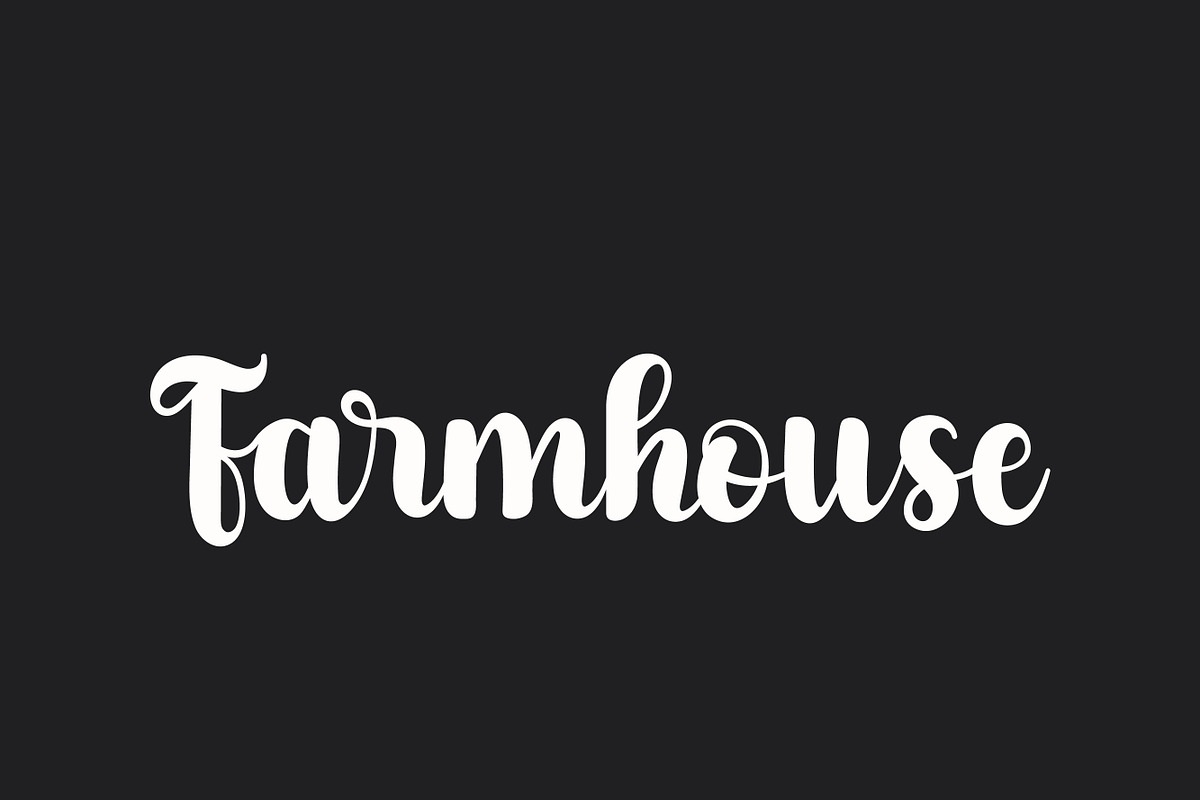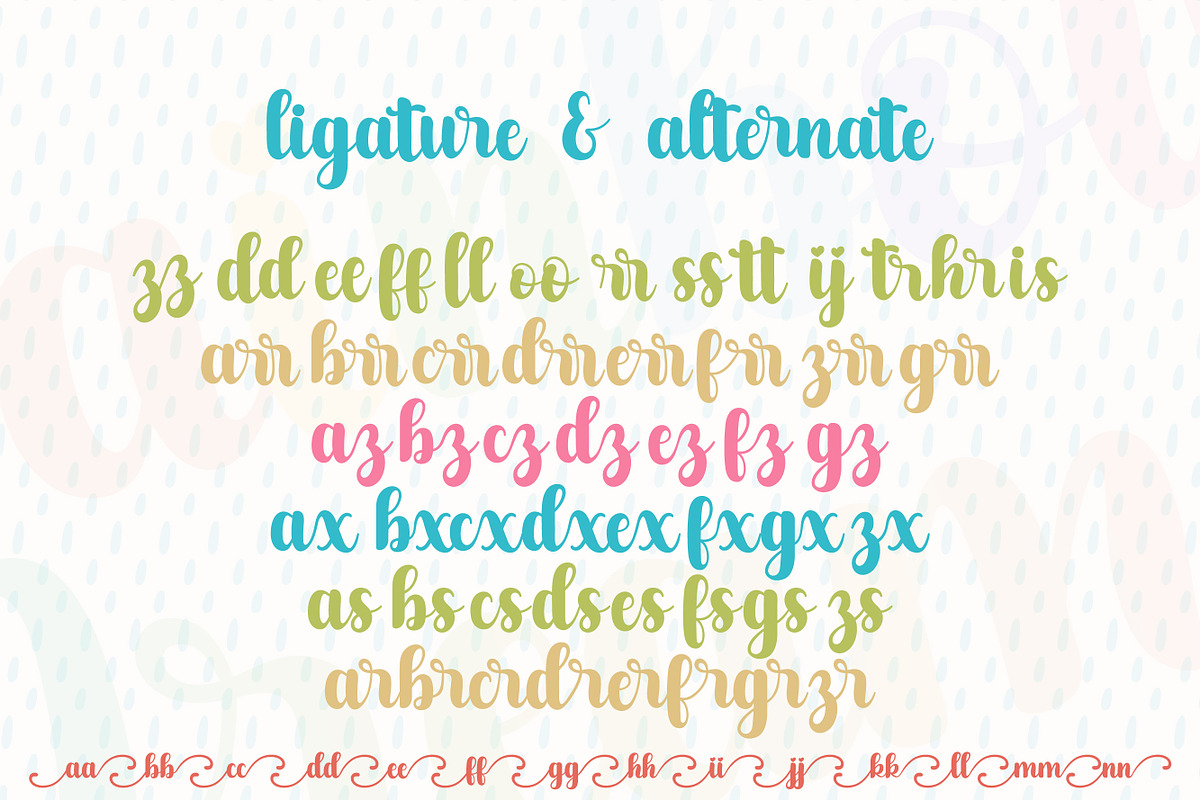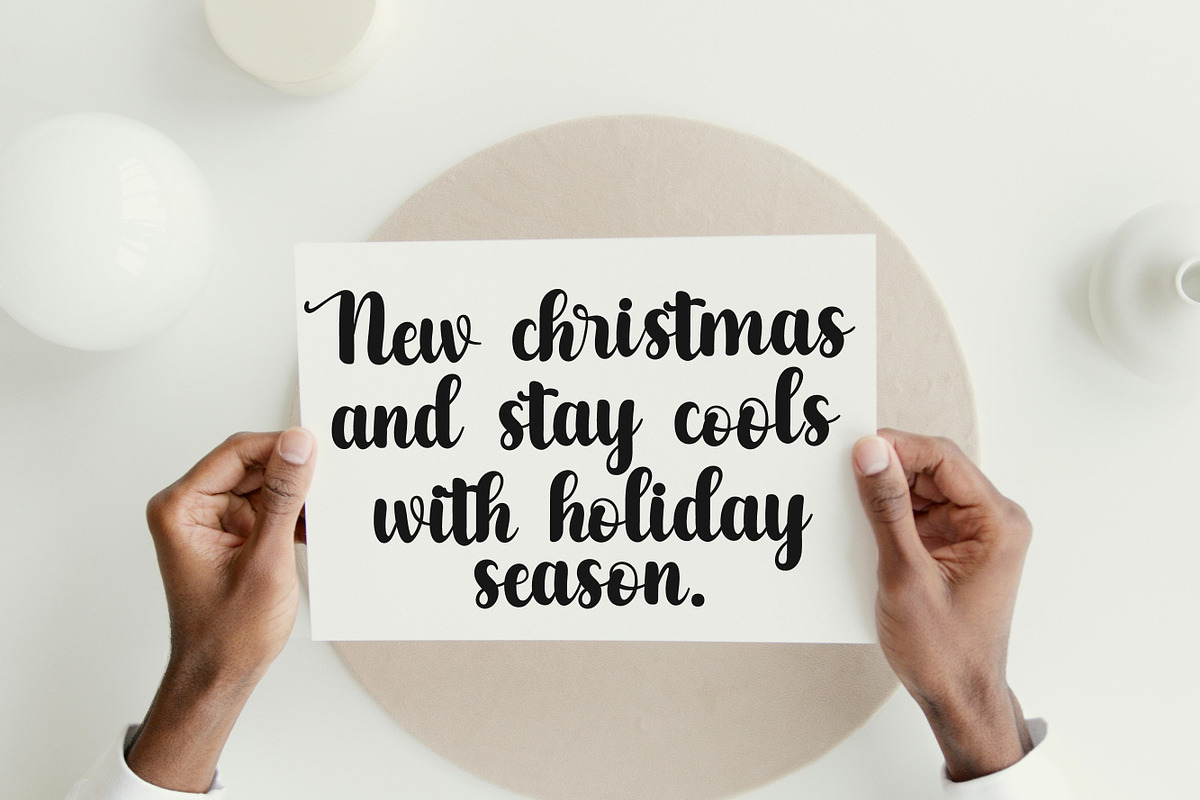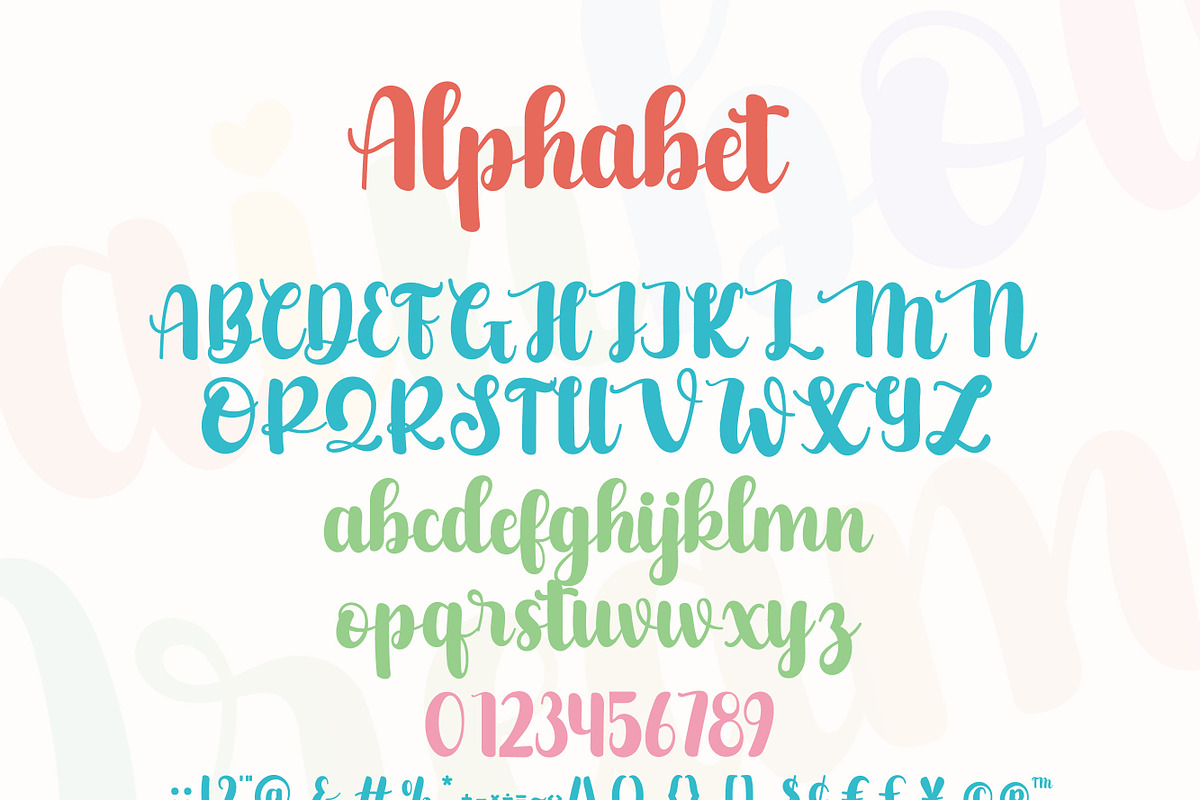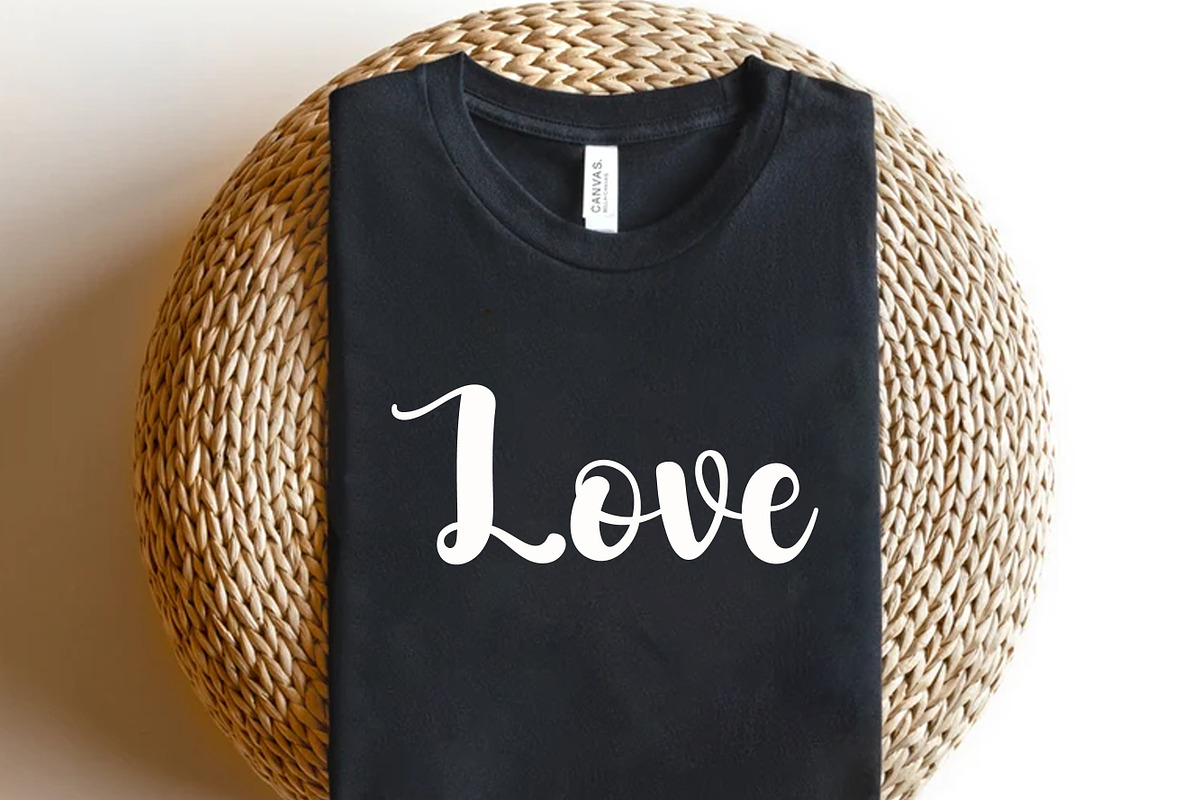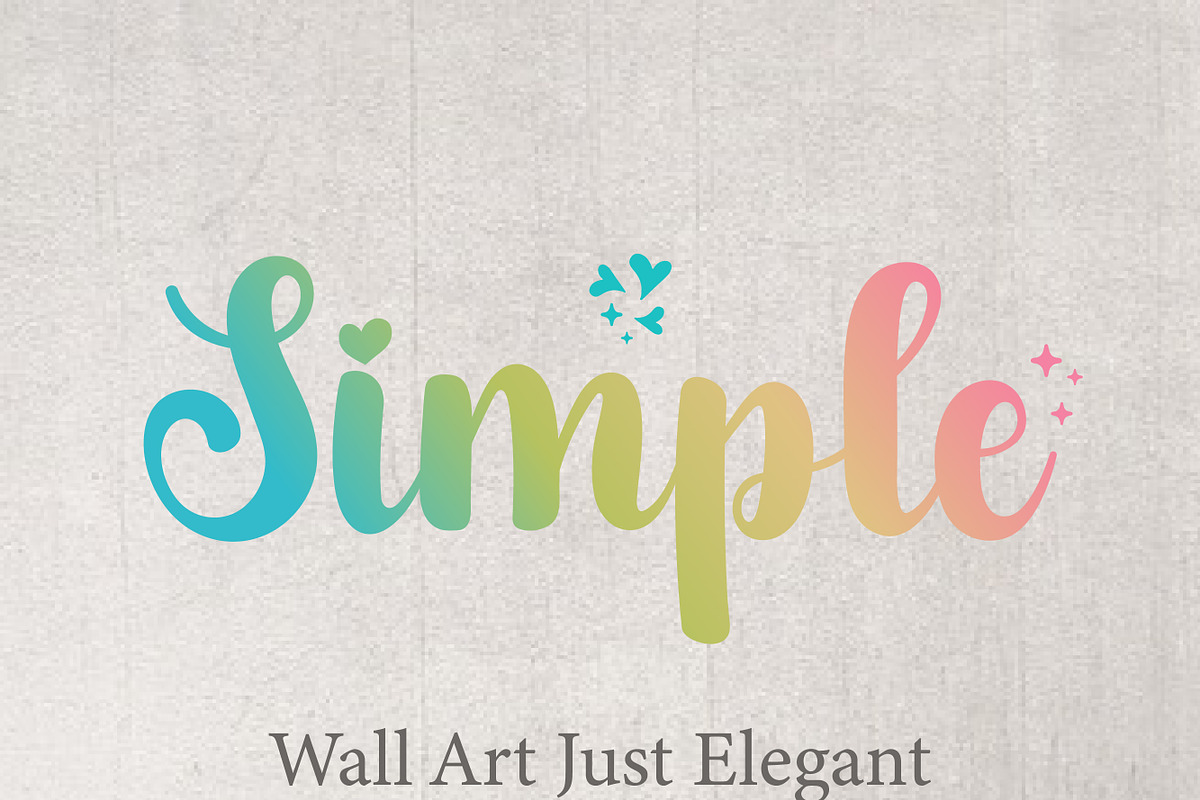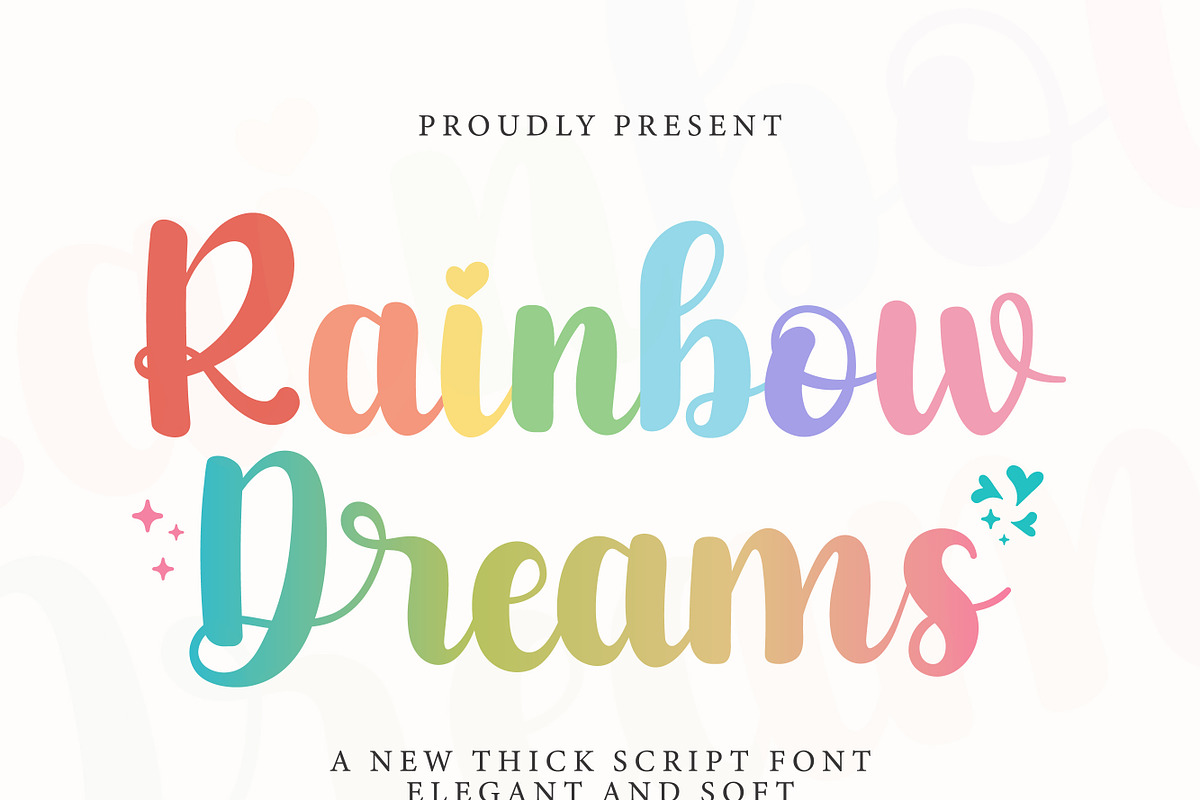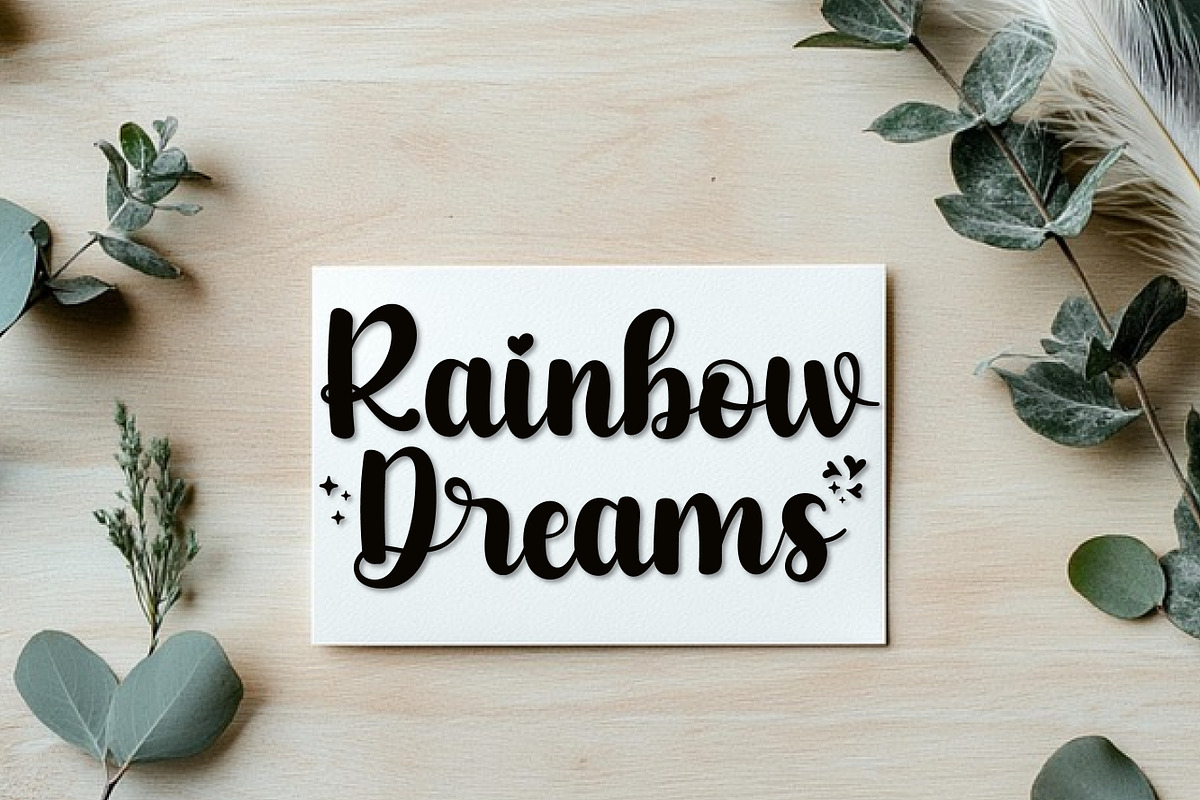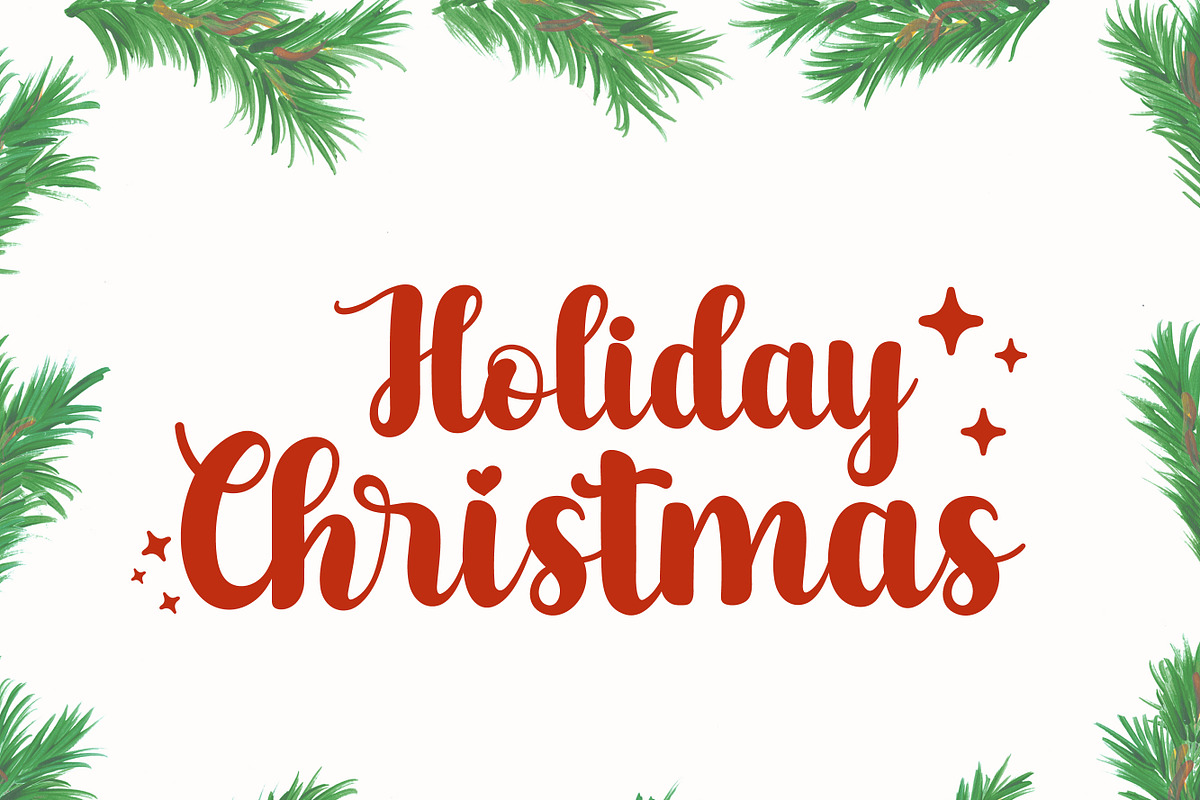
Rainbow Dream
Rainbow Dreams is a font that exudes softness and elegance typeface. It is the best choice for creating eye catching logos, branding and captures the spirit of the holiday season. This font brings a cheerful and nostalgic ambiance to your words.